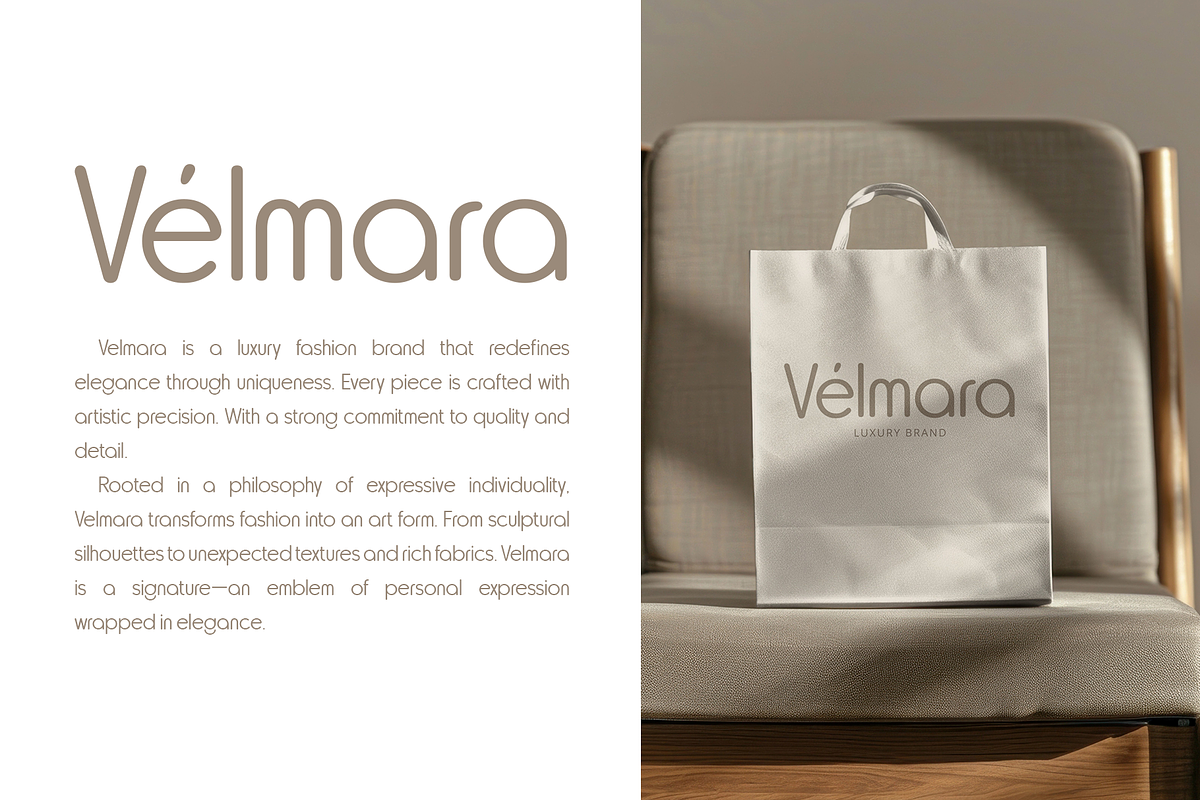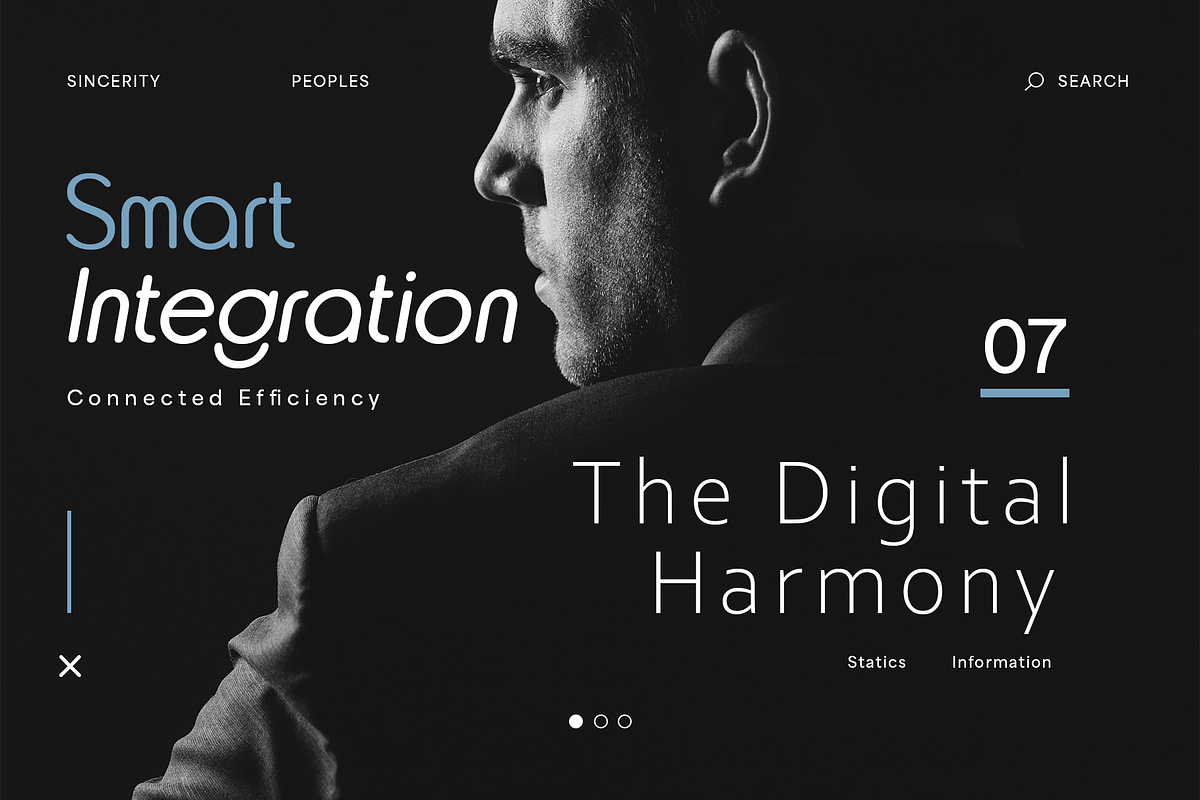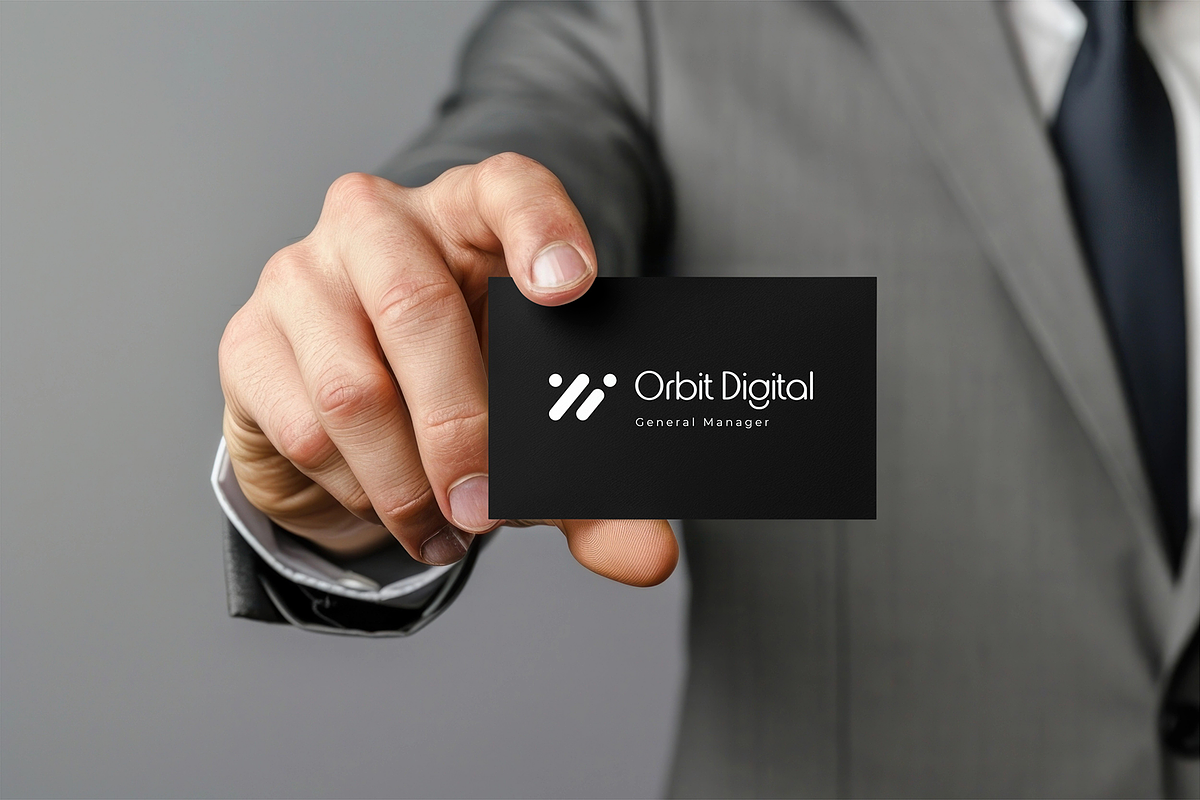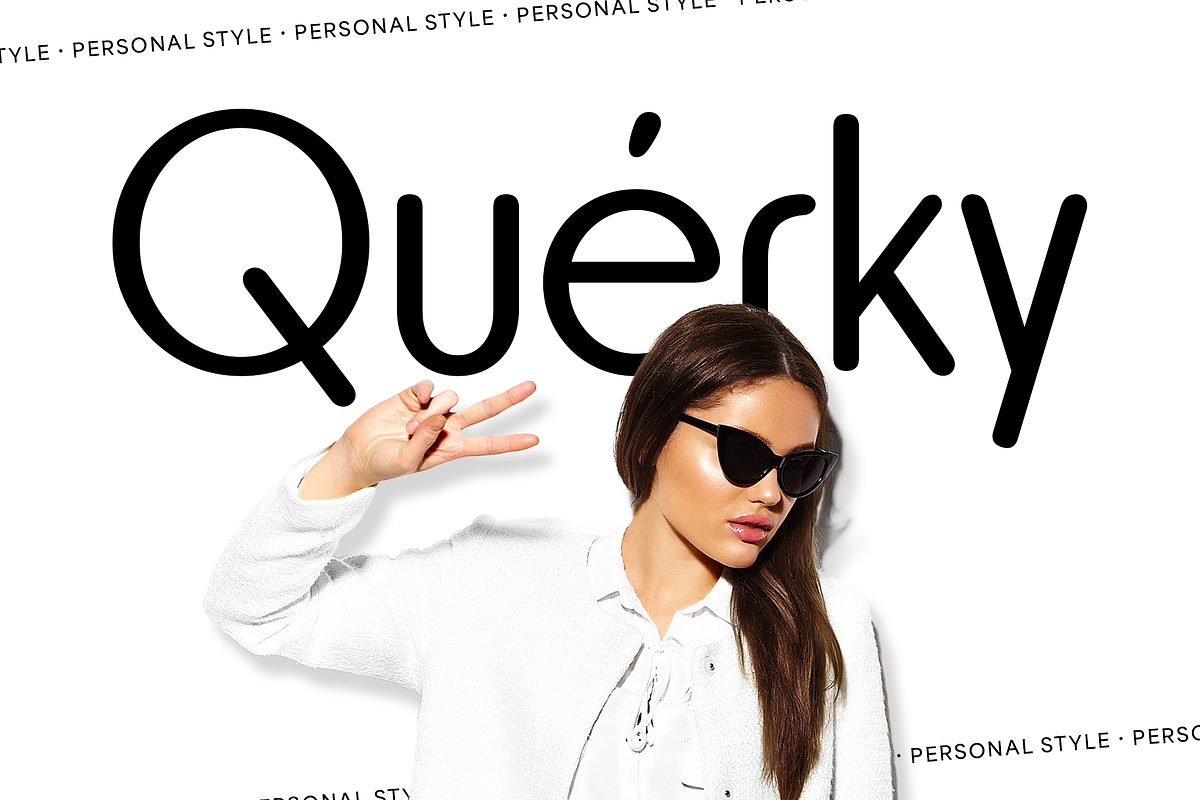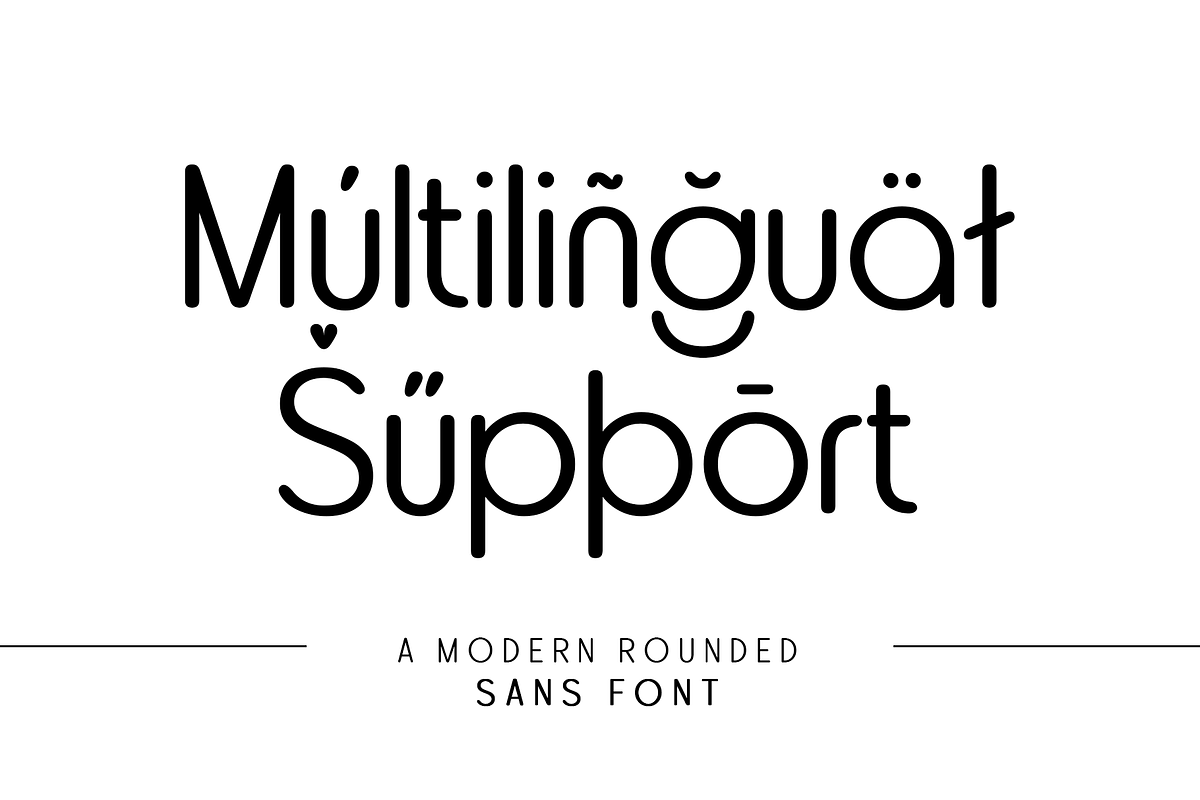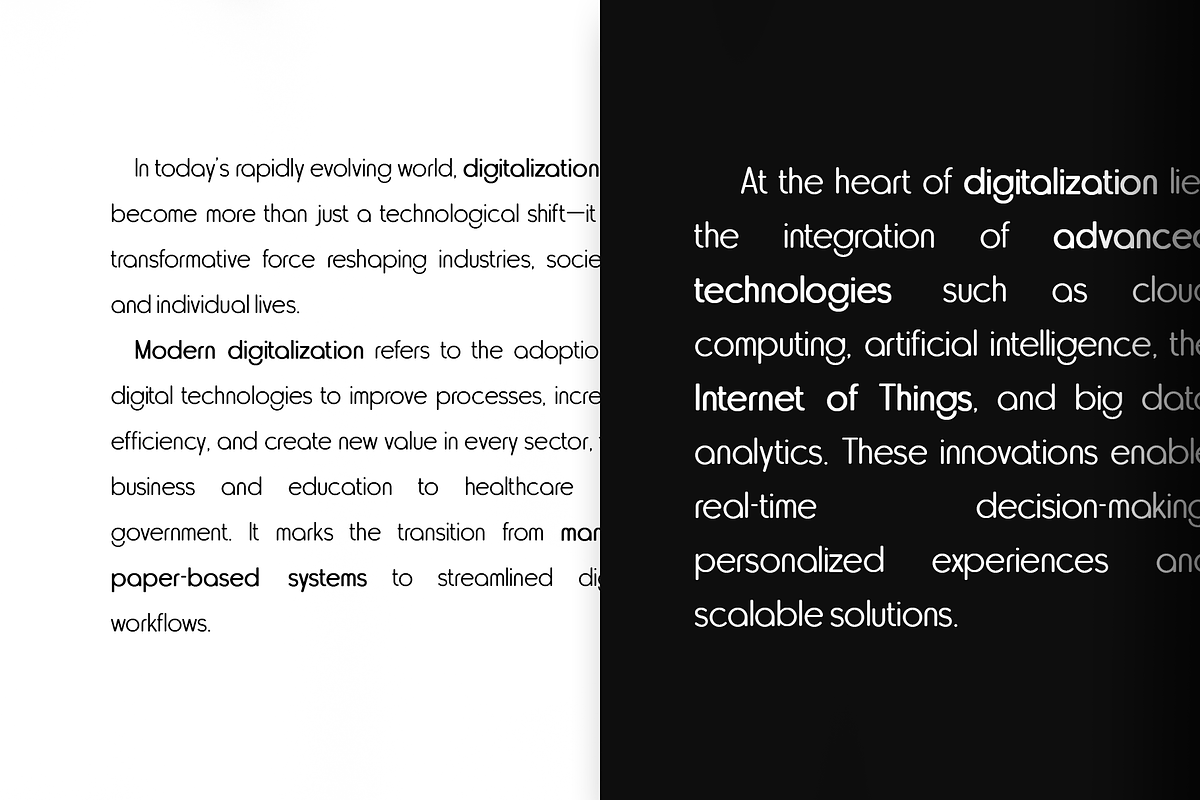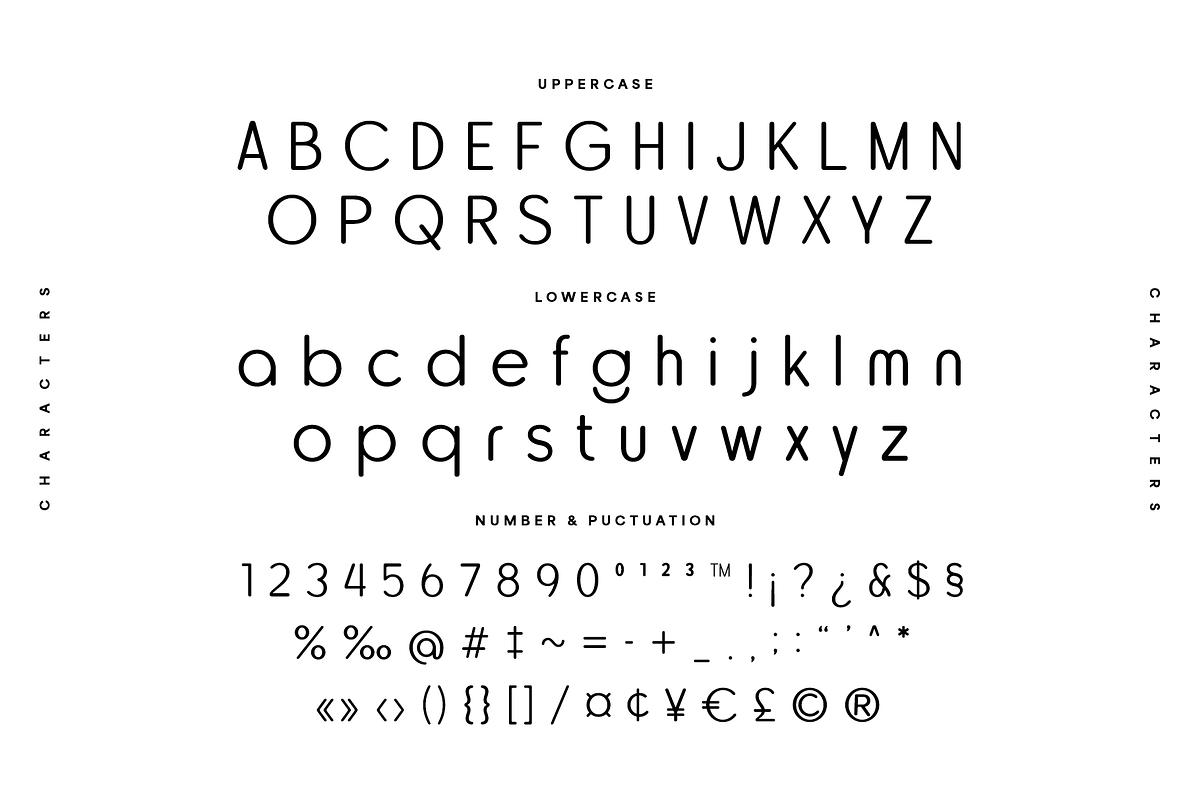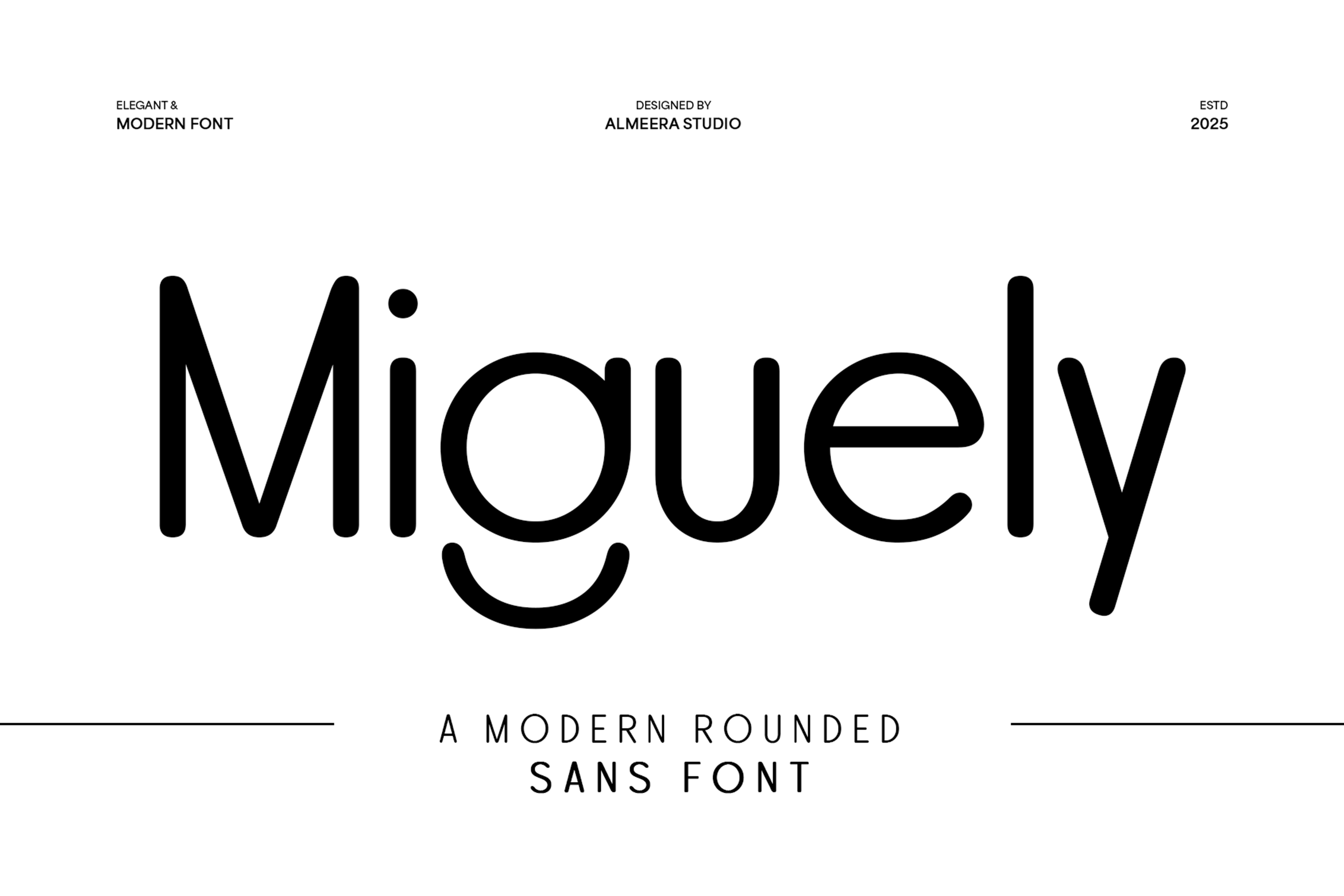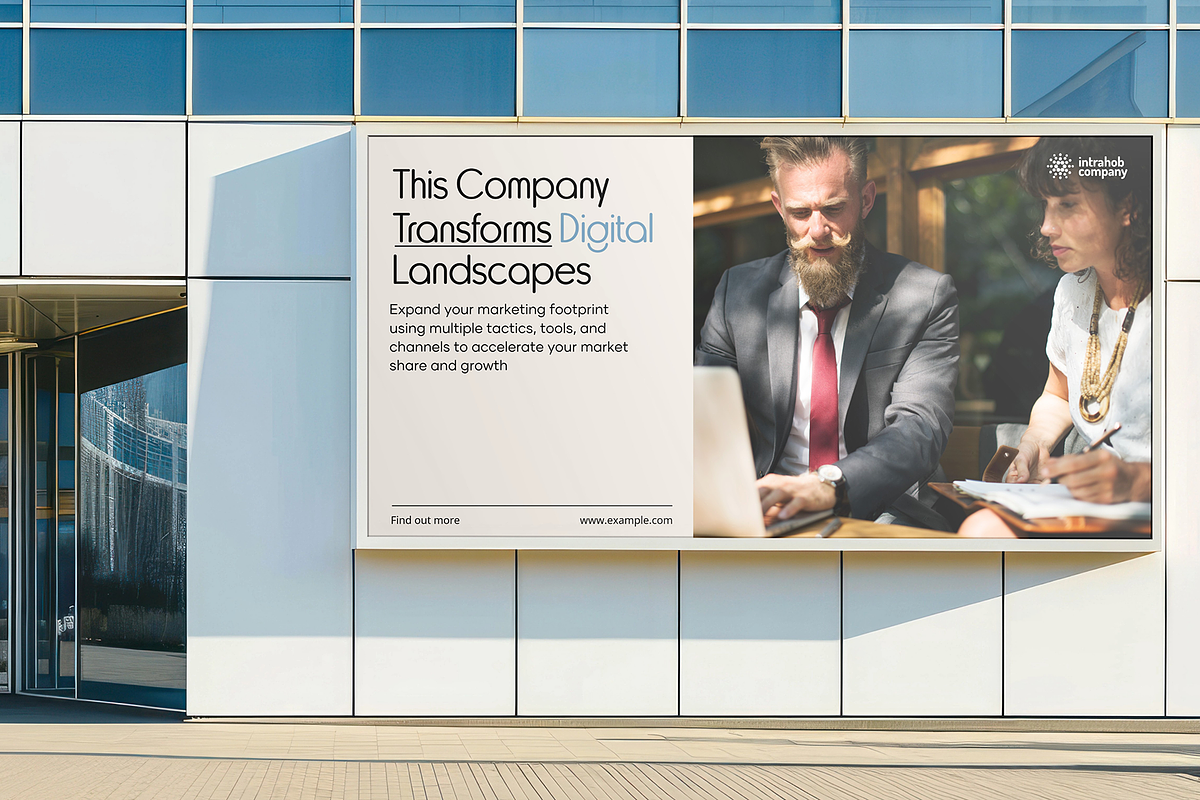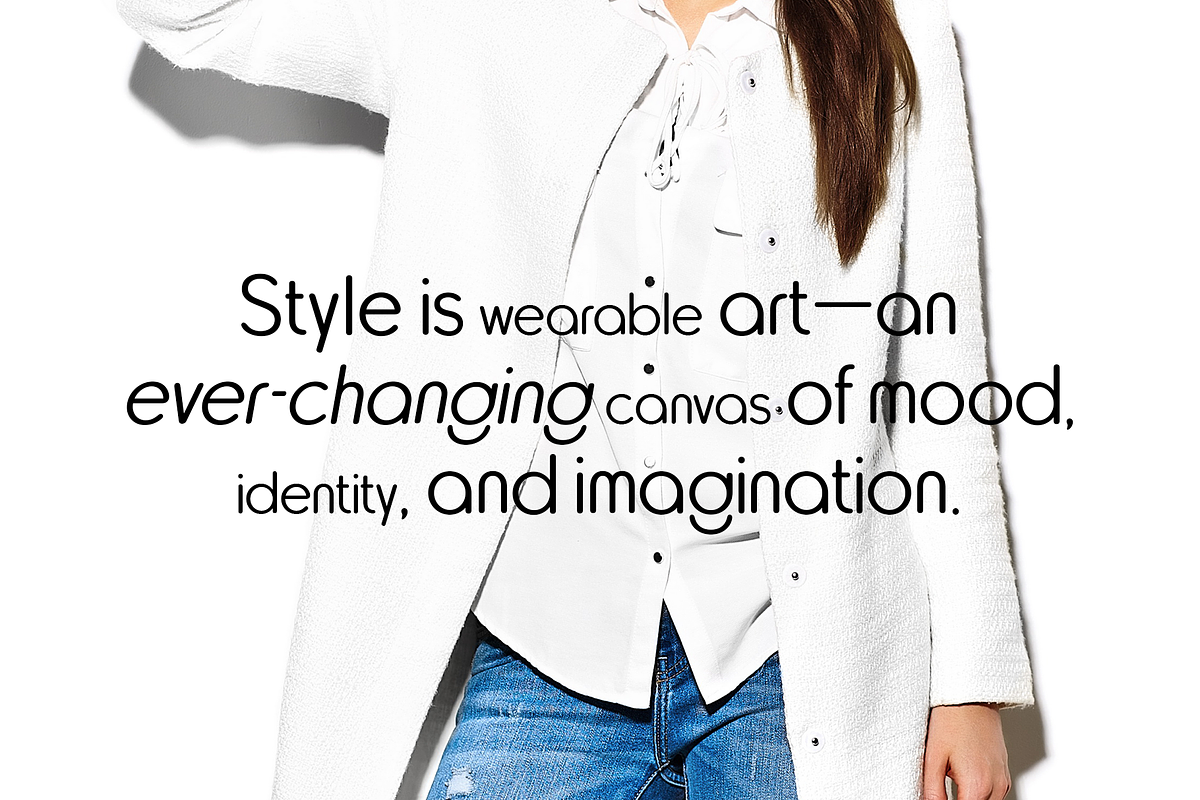
Miguely - A Modern Rounded Sans Font
Introducing Miguely, a charming and modern rounded sans font that combines elegance with a friendly, approachable aesthetic. Perfect for branding, children's products, web design, app interfaces, packaging, and cafe branding, Miguely features smooth, inviting curves that exude warmth and playfulness. This elegant and modern typeface offers excellent readability and a contemporary feel, making it ideal for projects that require a soft, clean, and welcoming touch. Miguely's versatility ensures it fits seamlessly into various applications, bringing a sense of minimalist charm and professional lightness to your typography. It's the go-to font for designers who desire a fresh, friendly, and effortlessly chic solution.